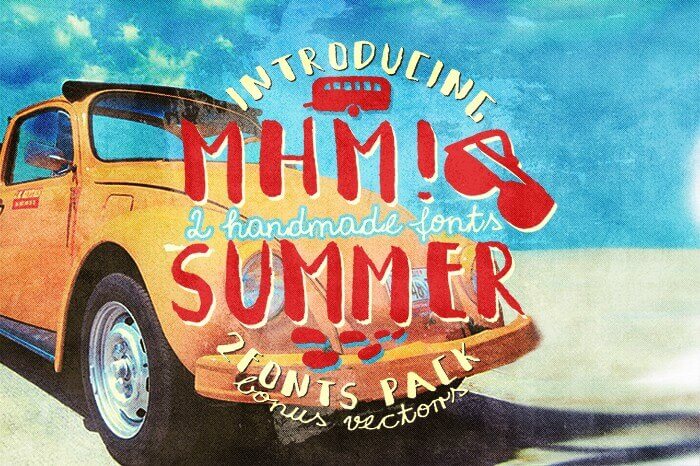
20 Summer Fonts to Use in Seasonal Designs
If you need playful summer fonts and typefaces to spruce up your social media posts or visual ads, here’s a list of 20 free fonts that will bring a summer breeze to your design.
Summertime is a season we associate with playfulness, relaxation, beaches, and fun. It’s a season when everything has more color and zest and feels like all the chaos slows down for a while. And you probably want the typography in your social media posts, designs, and printables to reflect that summer state of mind.
Handwritten
Handmade fonts have a genuine light and unassuming quality. They are often free-flowing and light, just as the summer vibes you’ll want to translate with your graphic design.
1.Summer Vibes (free)
This font is 100% free for both personal and commercial use. It is characterized by thin lines and gentle strokes. You could use the Summer Vibes font on its own, or combined with a stronger, bold one for a heading.
2.Original Surfer (free)
This free summer font is definitely worth bookmarking. It’s quite simple and versatile, so it fits well with almost any design. Whether you need YouTube thumbnails, stickers, or a promotional landing page, this is a great font to get.
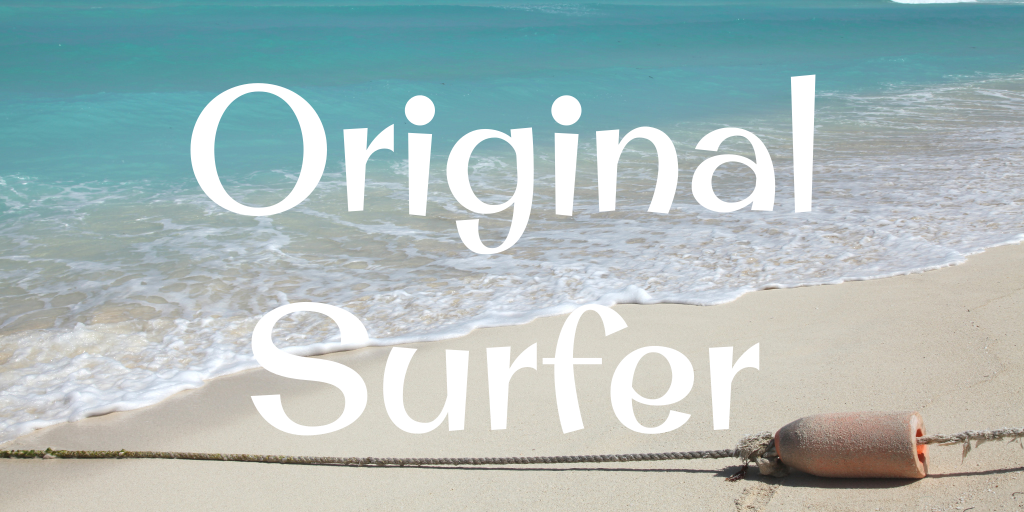
3.Rock Salt (free)
Another handwritten script font created with felt-tip markers. It’s not as free-flowing as the previous examples, but really has an original quality and feels almost as if it belongs only on paper.
4.Tomatoes (free)
Tomatoes is the definition of thin line and cursive. It has a beautiful, light appearance. But be wary about its use—it might not be the best choice for a display font since it’s a bit hard to read. It’s free for personal use, but you can contact the author for a commercial use license.
Decorative
Fonts with hearts, extra strokes, and scribbles in them? Yes, it sounds risky and you might overdo it if the design is already colorful and noisy. But, when well balanced, retro design can help create the perfect summer vibes font.
5.Palm Beach (free)
This bold, wide-lettered font has a palm leaf pattern all over it. Palm Beach is very unique and perfect for your summer projects. Just imagine it on a monochrome t-shirt.
6.Hawaiian Punk (free)
Travel bloggers, assemble. This serif font would be perfect for a featured image. The Hawaii-inspired typeface with cartoonish characteristics is a fun and appealing one.
7.Tiki Tropic (free)
This summer font family is here to brighten up any design. Tiki Tropic had multiple graphics to discover: jumping dolphins, palm trees, flowers, and Tiki masks. It also supports more alphabets, not just the basic Latin characters.
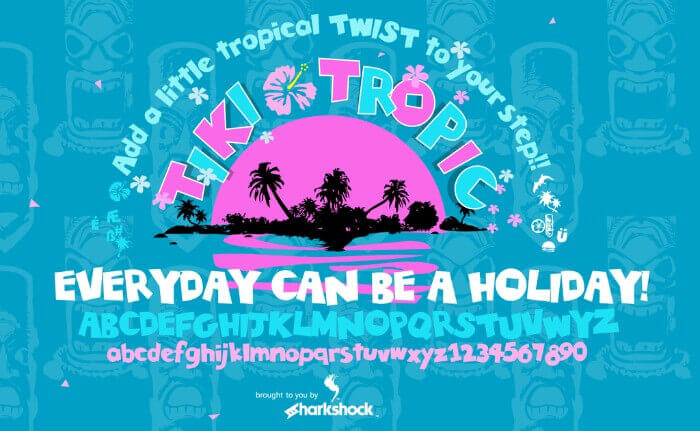
8.Summer Light (free)
This font family is a rare combination: sans serif and elegant, yet fun and decorative. Typography is a hell of a creative market, folks. It is also a completed typeface with multilingual support.
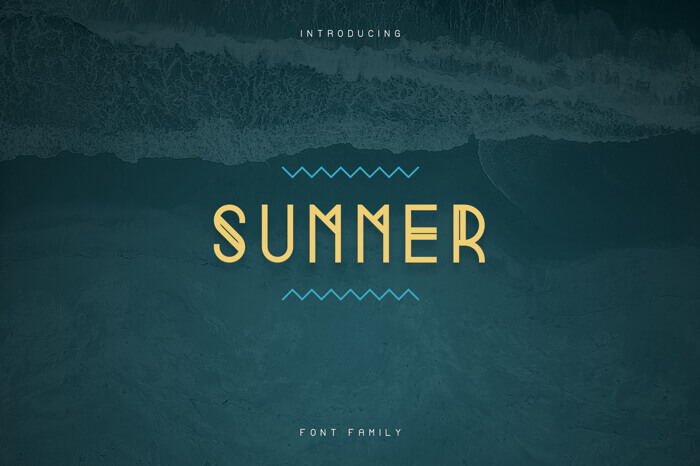
9.KG Summer Sunshine (free)
KG Summer Sunshine is another fun and playful font family. The three-dimensional letters have a retro quality, and it reminds of the DIY “graffiti” names kids used to draw in their notebooks.
10.Wishful Waves (free)
The clue is in the name: it’s wavy. This font is perfect for a go-with-the-flow, surfer vibe. If that doesn’t scream summer, what does?
Elegant
If a font is sleek and elegant, it doesn’t mean it has to also be professional and dull. Here are some beautiful summer vibes fonts that merge the summer vibes with standard and clean design well.
11.Esencia (free)
This original font by CastleType is inspired by a Spanish stock certificate from 1941 with 11 beautiful Art Deco style letters. It has elegance and flair but is still dynamic and summery. Esencia supports most European languages, even Greek and Cyrillic.
12. Pana Summer (free)
This font is very light and elegant and comes in two variations, regular and outline. It would fit very well with a minimalist Instagram theme and breezy pastel colors.
13.Vibes (free)
This font was originally designed for Arabic. According to the description the creator provided on Google Fonts, Vibes was designed to be a mixture that radiates energy, flexibility, and cuteness.
14.Camar Vintage (free)
The author was inspired by art deco when he originally designed this font for a set of postcards. Still, he sensed that Camar Vintage has a calm rhythm and a modern feel, so he decided to publish it. This beautiful free summer font is available for both personal and commercial use.
Textured letters
Some fonts are created with brushes or have a watercolor-like texture. They bring some extra uniqueness and color to the table, so you might consider using them if you want an impressive design.